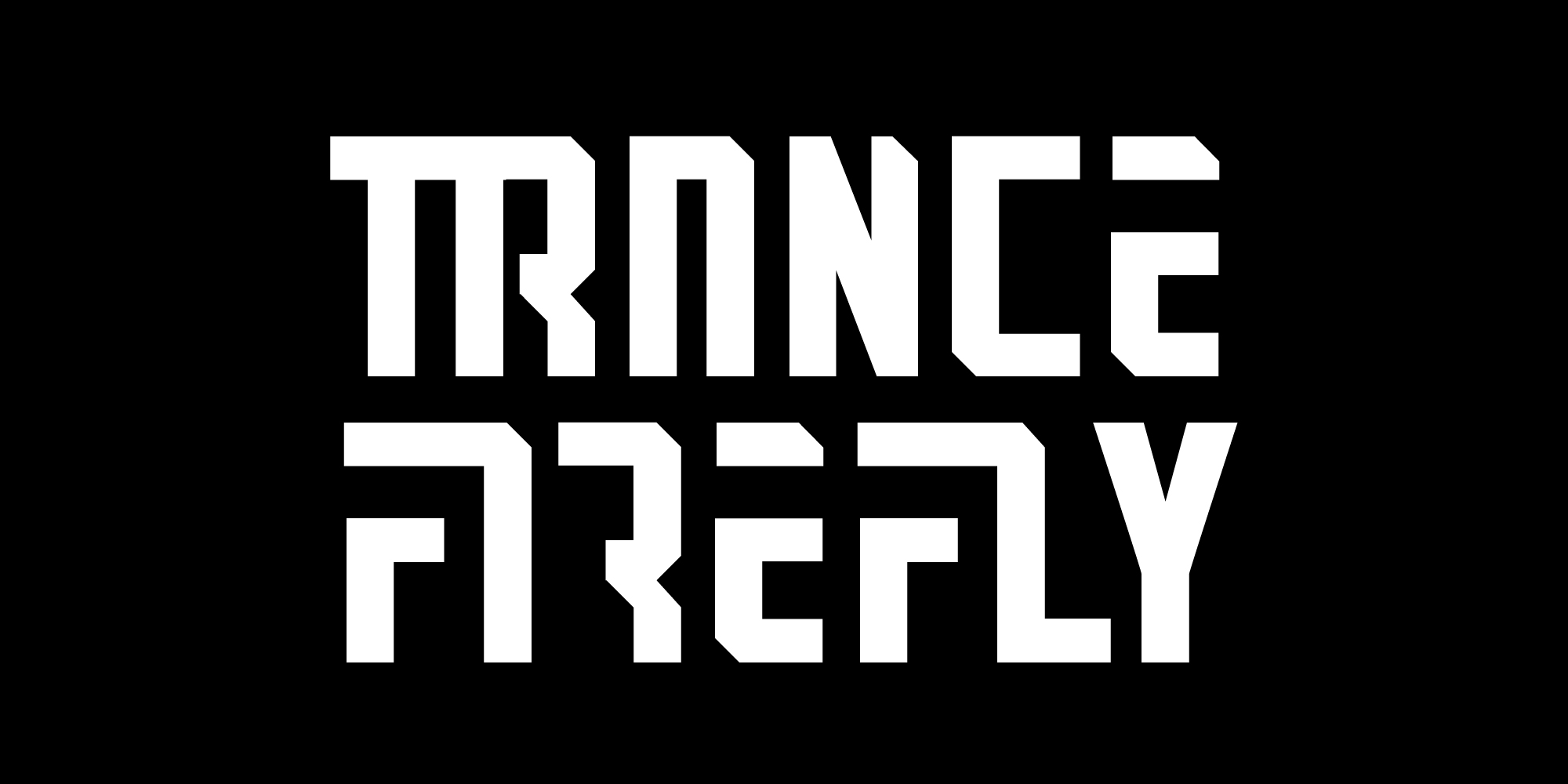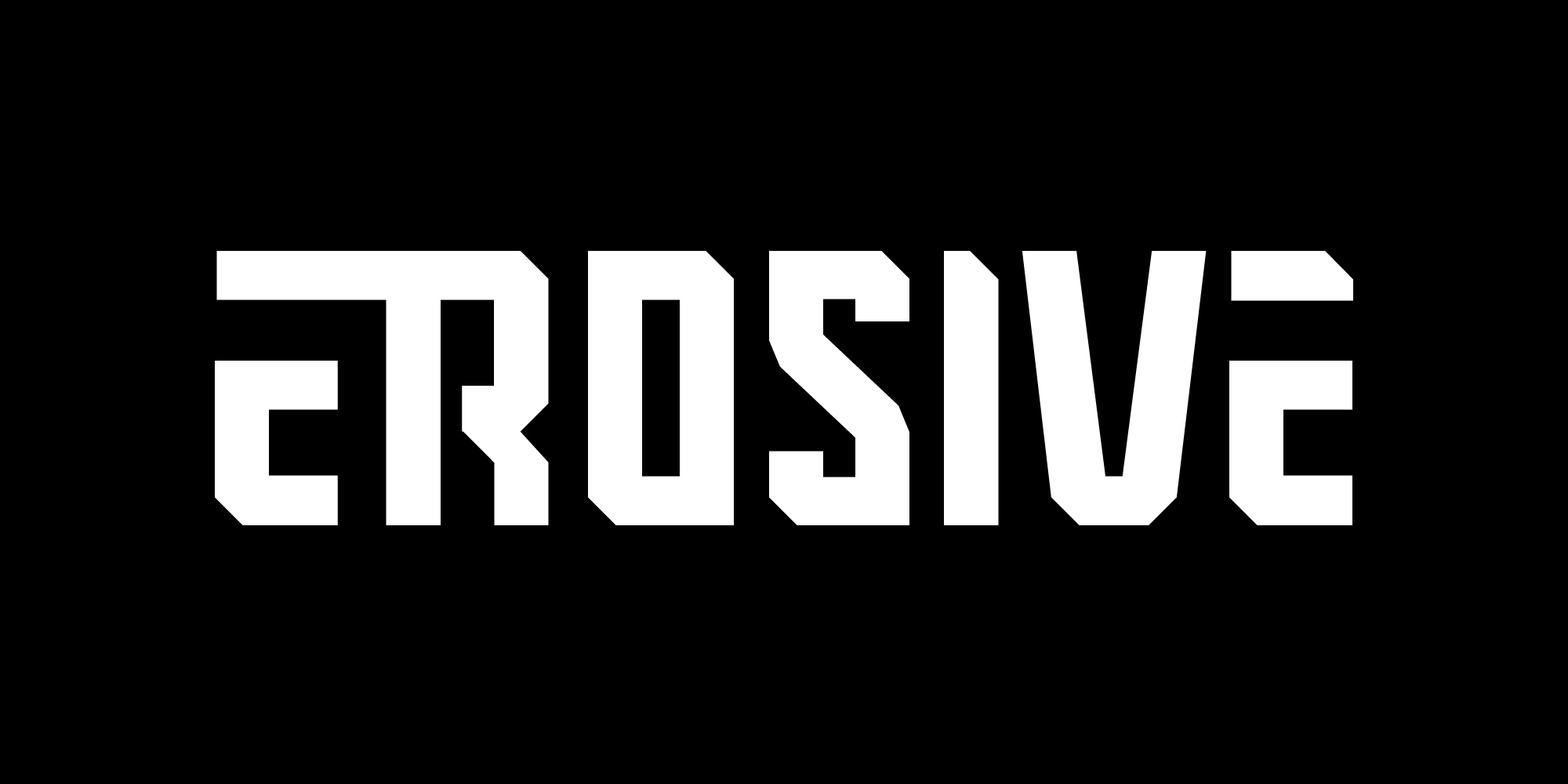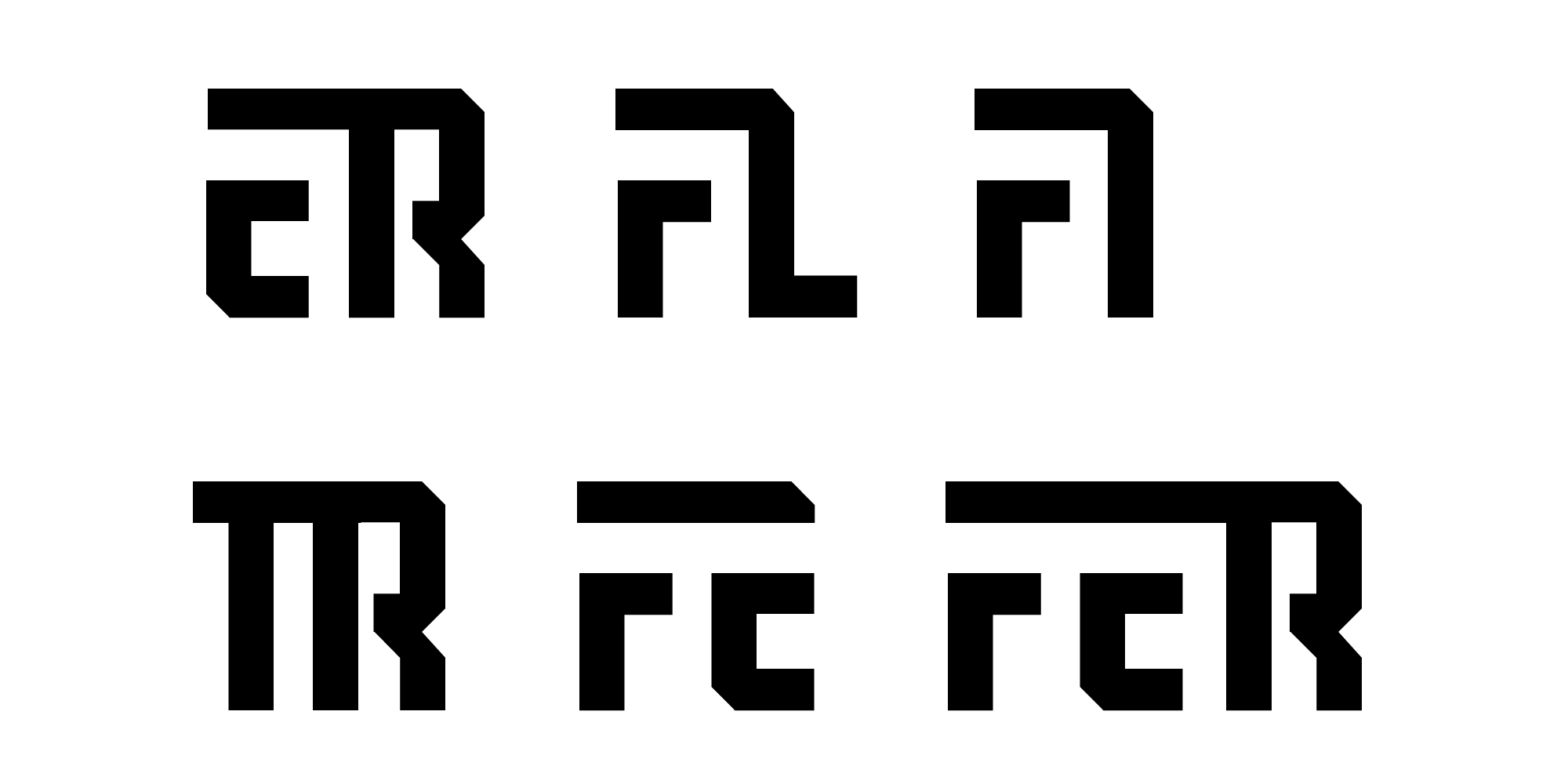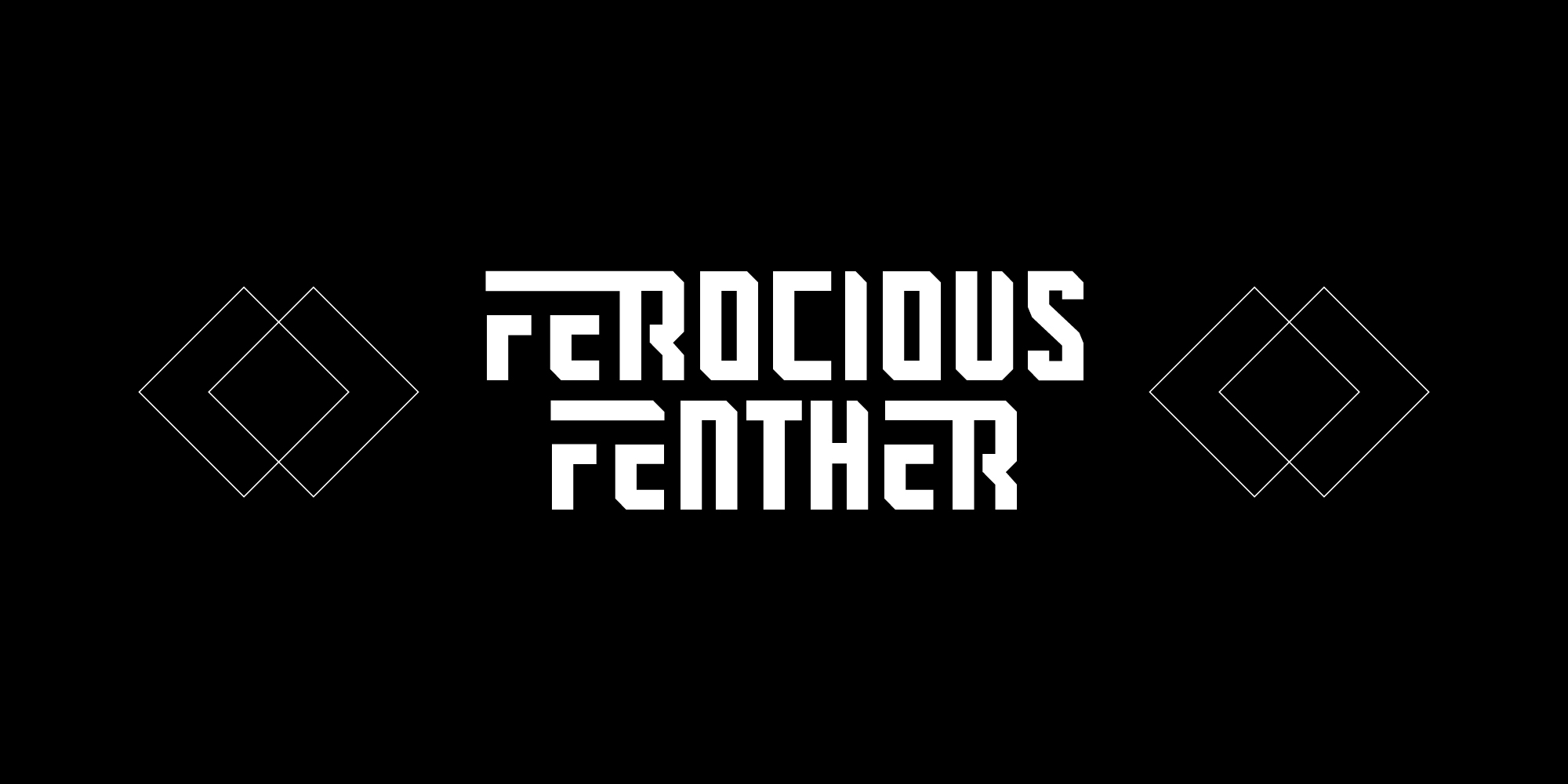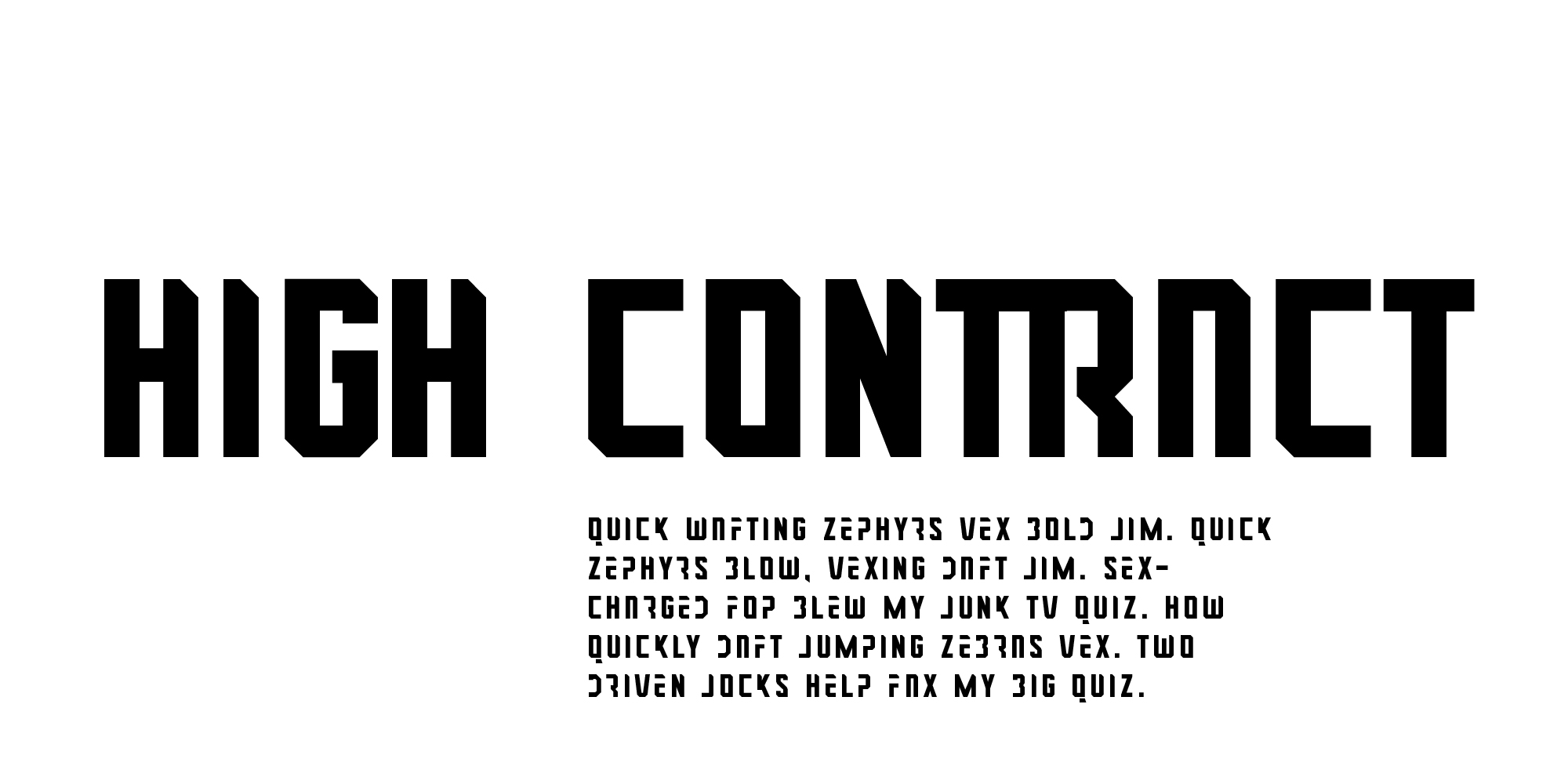
MBF Cyber
The cyborg still consume his vegetables
Cyber is a modern clean and square display font. This typeface has strong and dominant effect, it is perfect to grab attention and title.
**Note** Please keep in mind that this is a display font. It is intended to be used as a headings, title, branding, logo and wordmark rather than body text.
Kerning, Discretionary Ligature